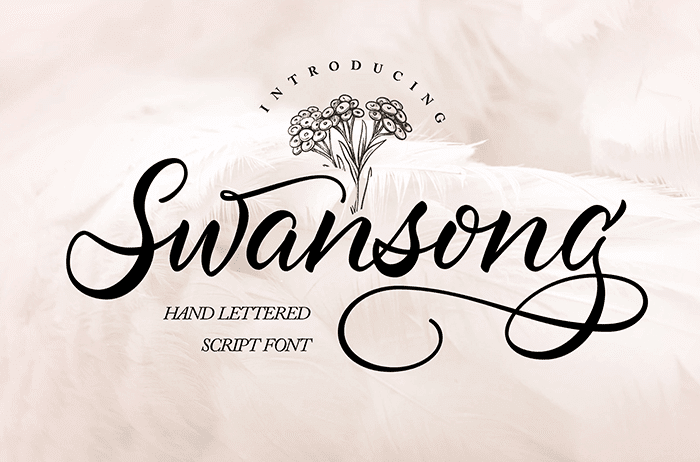
Swansong Script Font
Swansong Script Font is an incredibly beautiful and elegant calligraphic script with gorgeous swashes. Fall in love with its harmonious look & feel, and turn any crafting idea into a true standout. Thanks to Vunira Studio for sharing this font! Take a look at this portfolio for more of his stunning fonts.